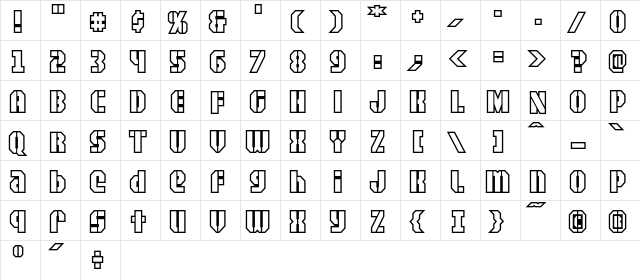
CCArea51MilitaryOpen Regular
| Foundry | Active Images |
| Designer | John 'JG' Roshell |
Design Context for CCArea51MilitaryOpen Typeface
CCArea51MilitaryOpen has the no-nonsense character of military stencilling and tactical signage, projecting authority and directness.
A strong choice for security brands, outdoor gear, and high-stakes visual communication.
Pro Tip: Try CCArea51MilitaryOpen in all-caps for the most authentic military signage feel. It pairs well with stark, minimal layouts and muted colour palettes.